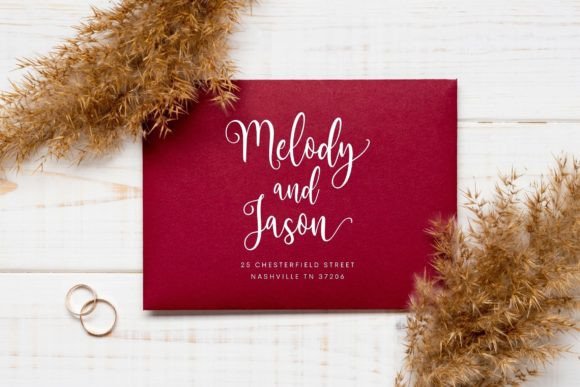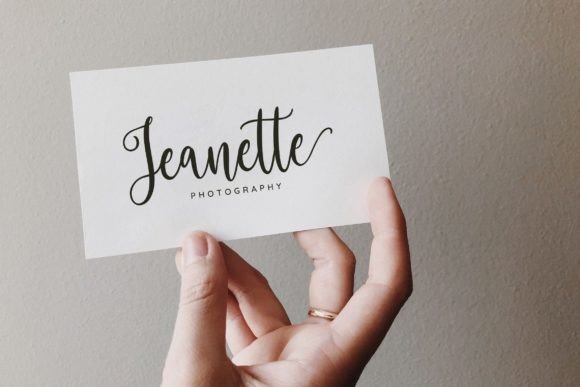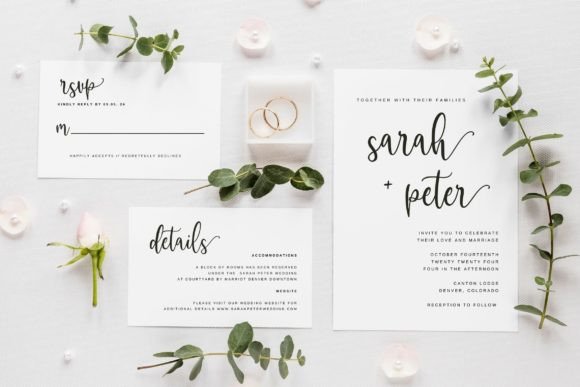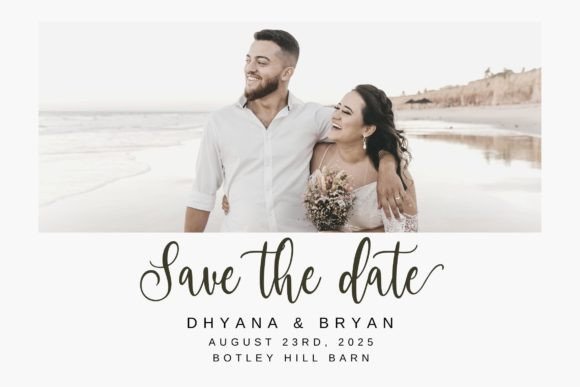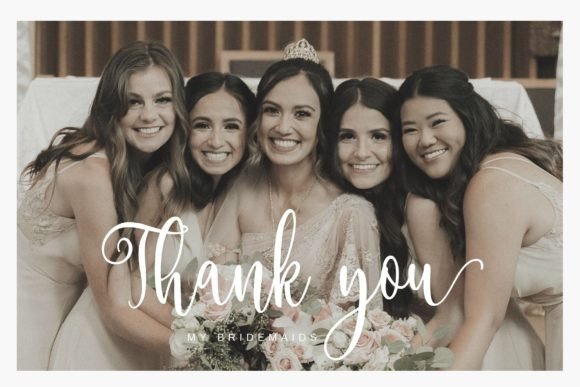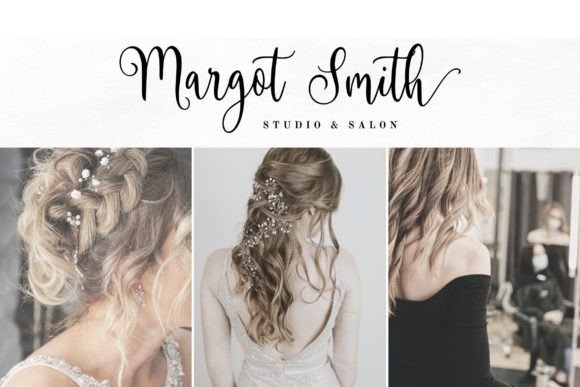
Discover the Timeless Elegance of Amalisa Font
As a designer, there’s nothing quite like the rush of finding the perfect font to elevate your project. For me, it was the moment I stumbled upon Amalisa Font – a modern calligraphy script that effortlessly combines elegance and simplicity. Its clean lines and refined aesthetic had me hooked, and I knew I had to learn more.
Amalisa Font is a versatile and stylish typeface that’s perfect for a wide range of applications, from wedding invitations and calligraphy logos to elegant websites and personalized gifts. With its PUA encoding, accessing all of the glyphs and swashes is a breeze, making it a valuable asset for designers looking to add a touch of sophistication to their work.
Whether you’re a seasoned pro or just starting out, Amalisa Font is an excellent addition to any design toolkit. Its timeless elegance and versatility make it a must-have for anyone looking to create truly special and memorable designs.
- Unique Characteristics: Amalisa features a clean and modern design with a focus on legibility and readability, making it suitable for body text and titles.
Amalisa Font Review
Overall, I’m quite impressed with the Amalisa Font. It’s a beautiful, elegant script font that’s perfect for creating a luxurious and sophisticated feel in your designs. ✨ One of the things I love about this font is its versatility – it works well in both print and digital applications, and can be used for a wide range of projects, from invitations and posters to logos and branding materials.
The Amalisa Font has a beautiful, flowing feel to it, with intricate connections between the letters that make it feel more like handwriting than a traditional font. ✨ The font also comes in a variety of weights and styles, making it easy to customize to fit your needs.
While the Amalisa Font is generally well-designed, there are a few limitations to consider. ⚠️ One of the main issues is that the font can be difficult to read in small sizes, making it best suited for use in larger formats. Additionally, the font may not be the best choice for projects that require a lot of bold or italic text, as it can be challenging to make the text stand out.
In general, I’m very happy with the Amalisa Font, and would definitely recommend it to designers who are looking for a high-end, elegant script font. While it may have a few limitations, the benefits far outweigh the drawbacks, making it a great addition to any designer’s toolkit.
- Beautiful, elegant script font
- Versatile and works well in print and digital applications
- Multiple weights and styles available
- Difficult to read in small sizes
- May not be suitable for projects requiring bold or italic text
Tips: Use Amalisa Font for creative and whimsical designs, such as invitations, greeting cards, and social media graphics.
Tips: Use Amalisa Font for typography-heavy designs, such as posters, brochures, and magazine covers.
Tips: Use Amalisa Font for presentations, reports, and documents that require a touch of elegance and sophistication.
The Amalisa Font is ideal for:
Designing creative and whimsical projects, such as invitations, greeting cards, and social media graphics.
Creating typography-heavy designs, such as posters, brochures, and magazine covers.
Adding a touch of elegance and sophistication to presentations, reports, and documents.